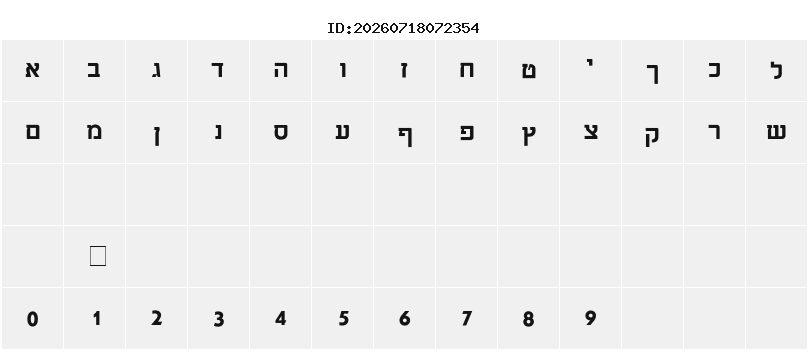
Chaya.ttf is a modern, elegant sans-serif font designed for ultimate readability and visual harmony. Perfect for branding, headlines, web design, and print materials.